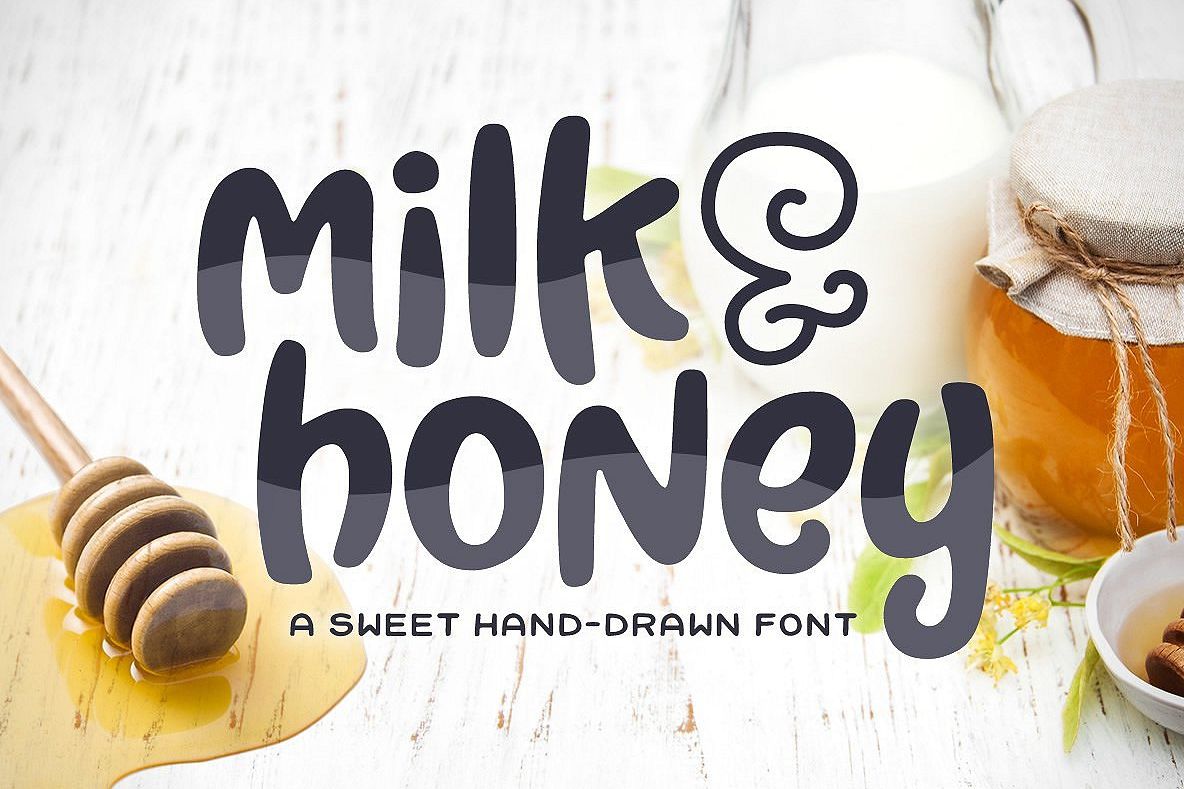
Milk & Honey Font
Introducing: Milk & Honey! A sweet and simple hand-drawn font. Its bold and curvy characters can add a bunch of personality to any project.
What can be said, a great heavy but not clunky font, fun to use
LOVE IT!